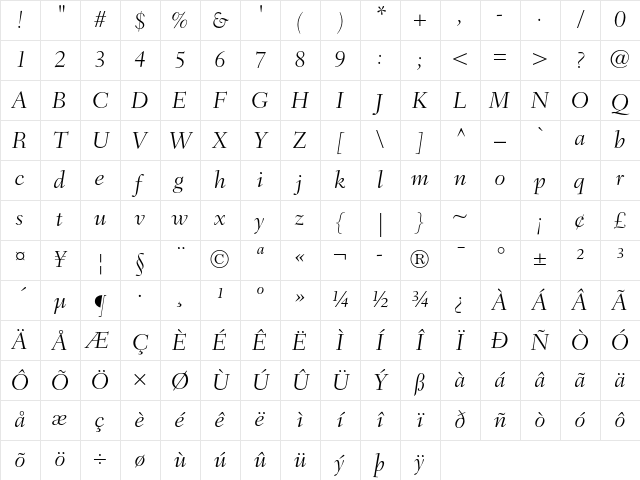
Fairfield LT Std 46 Light Italic
Style: 46 Light Italic
Designer: Rudolph Ruzicka, Alex Kaczun
Design Context for Fairfield LT Std
Fairfield LT Std is a composed and adaptable typeface that performs quietly and consistently across a wide range of design contexts. The slanted form adds forward momentum and visual energy. Its slender proportions lend an understated elegance to any composition.
Pro Tip: Use Fairfield LT Std for emphasis, pull quotes, and subheadings where its slanted energy can add rhythm to the layout.